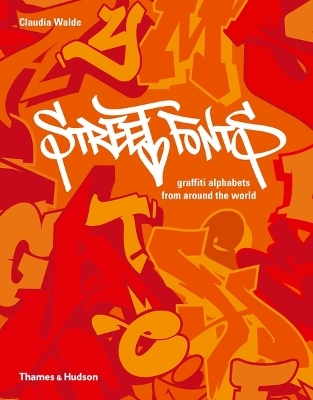
Street Fonts
Graffiti Alphabets from Around the World
A typographical sourcebook that features over 150 specially designed, original alphabets.
Claudia Walde spent over two years collecting alphabets by 154 artists from 30 countries. Each artist received the same brief: to design all 26 letters of the Latin alphabet within the limits of a single page of the book. The result is a unique typographical sourcebook featuring over 150 specially designed, original alphabets exclusive to this book.
Claudia Walde, aka MadC, is a world-renowned graffiti artist, muralist, designer and writer. She was born in Bautzen, Germany, and is most known for her large-scale, outdoor artistic paintings. MadC painted her first graffiti piece in 1996, being 16 years old. She studied at Burg Giebichenstein University of Art and Design in Halle and Central Saint Martins College in London. MadC carries a master's degree in graphic design. She is the author of Sticker City: Paper Graffiti Art.